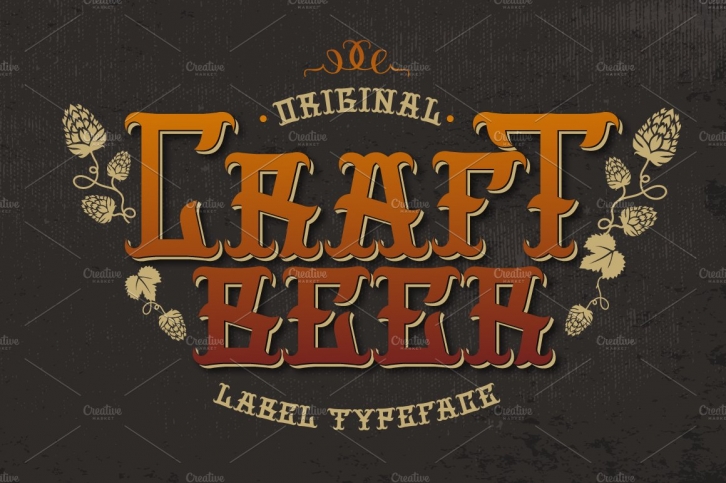
Craft Beer set!
Stylish typeface for your designs. Good for beverage label design or any purpose. Also you get 2 cool stickers, funny viking mascot and clip art.